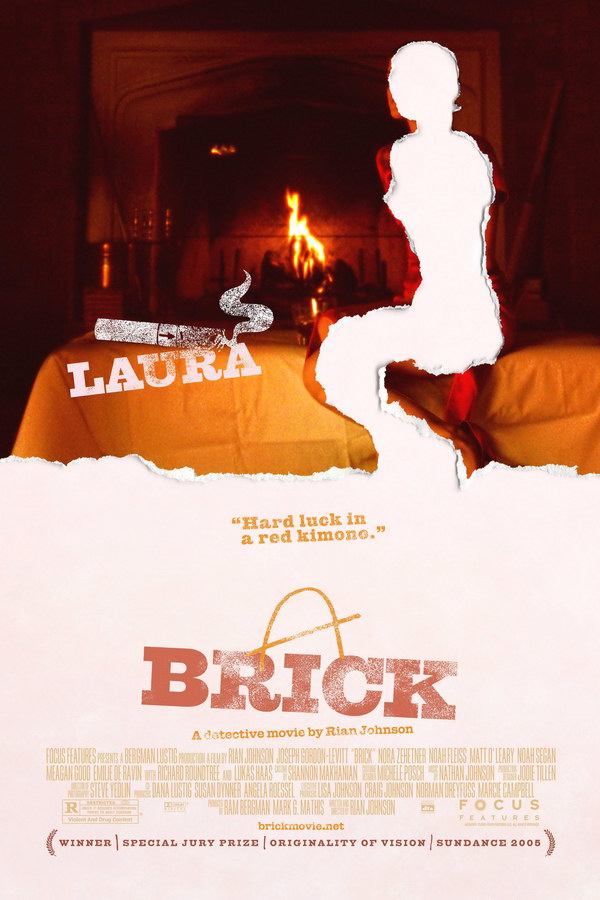
Fonts in UseBrick is a 2005 neo-noir thriller film directed by Rian Johnson, starring Joseph Gordon-Levitt as a high school student who becomes embroiled in a murder mystery after his ex-girlfriend goes missing.
The movie font resembles Giza, a Victorian-era typeface by David Berlow based on Vincent Figgins' 1845 specimen of Egyptian letterforms. Details on the font can be found here.